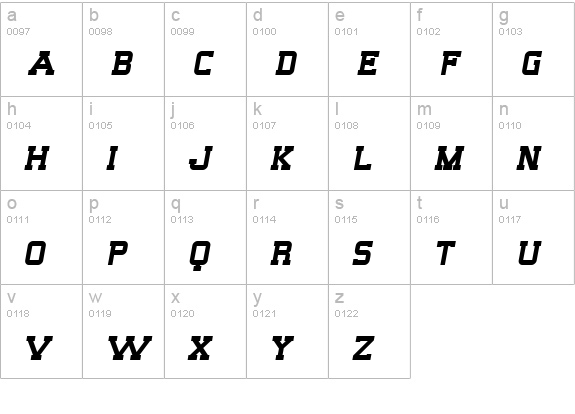
SF Big Whiskey SC is a captivating and bold typeface that exudes a sense of strength and confidence. Its unique design features sharp, angular letterforms that are meticulously crafted to make a lasting impression. With its striking appearance, SF Big Whiskey SC is perfect for headlines, logos, and branding projects that demand attention. This font's versatility extends beyond its eye-catching aesthetics. SF Big Whiskey SC is also highly legible, ensuring that your message is effectively communicated to your audience. Its clean and well-defined letterforms make it an excellent choice for both print and digital applications. One of the most appealing aspects of SF Big Whiskey SC is that it is freely available to download at FontsMarket.com. This means that you can easily access this remarkable font without any cost, allowing you to enhance your design projects without breaking the bank. Whether you're a professional designer or a hobbyist, SF Big Whiskey SC offers you the opportunity to elevate your work with a high-quality typeface that won't drain your resources. So why wait? Download SF Big Whiskey SC today from FontsMarket.com and add a touch of sophistication and impact to your designs. With its captivating style and generous availability, this font is sure to become a go-to choice for all your creative endeavors.